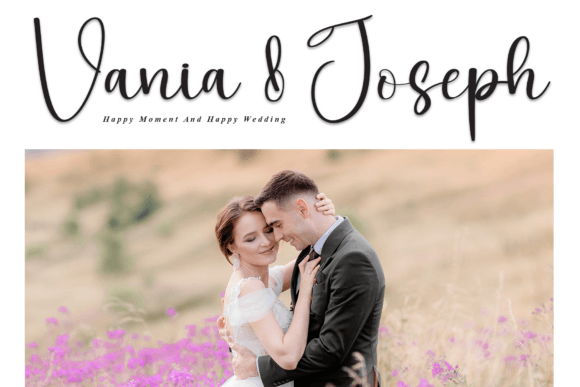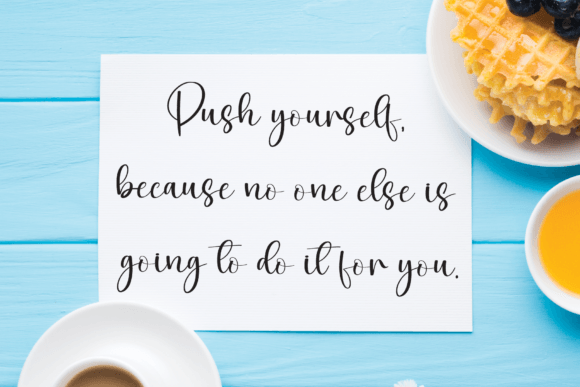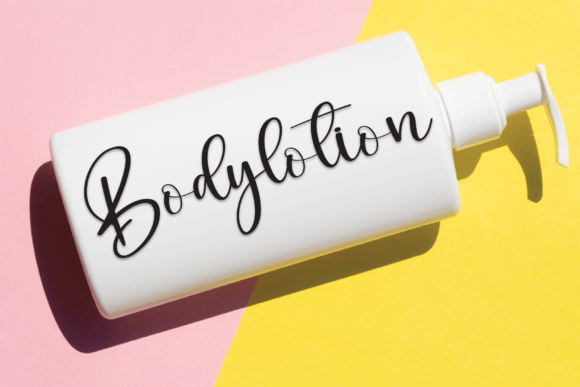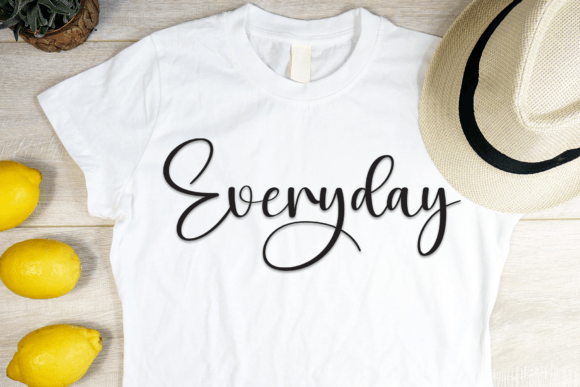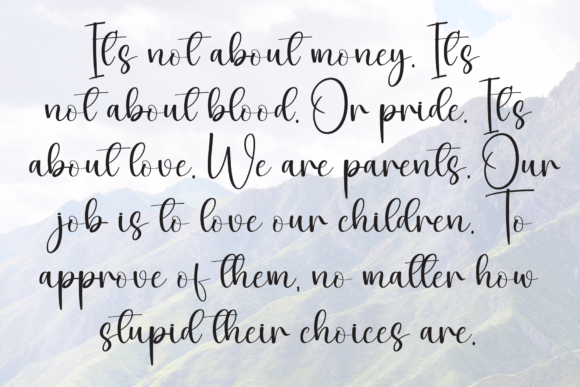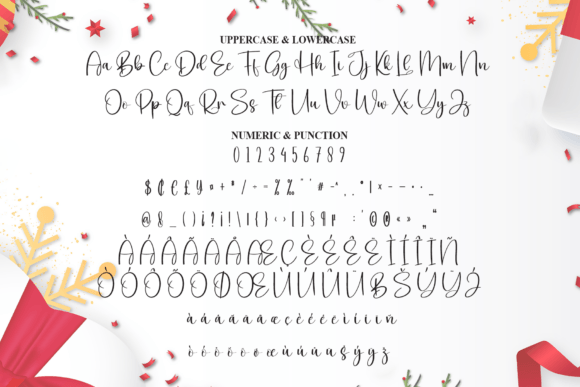
Introduction to Christmas Varsity Font
As you’re sipping hot cocoa and browsing through your favorite design blogs, you stumble upon the perfect font to make your holiday projects shine – the Christmas Varsity Font. Its elegant, handwritten style immediately captures your attention, and you can’t help but imagine the festive cards, decorations, and designs that will soon come to life with this beautiful font.
Whether you’re a seasoned designer or a creative enthusiast, finding the right font can make all the difference in bringing your ideas to life. And when it comes to the Christmas season, a high-quality font like the Christmas Varsity Font is a valuable resource that can add a touch of magic to your projects. With its smooth, flowing letters and transparent background, this font is perfect for creating eye-catching designs that will spread holiday cheer.
Key Features of Christmas Varsity Font
- Unique, hand-drawn design with a high-quality aesthetic, perfect for creative projects
- Transparent background, allowing for easy customization and versatility in design
- Includes 5 font styles, each with its own unique characteristics and uses
- High-resolution design, ideal for use in large-scale creative projects and print materials
- Perfect for adding a festive touch to holiday-themed designs, such as Christmas cards, posters, and more
Honest Review: Christmas Varsity Font
I recently had the chance to work with the Christmas Varsity Font for a creative project, and I must say, I was impressed. As a designer, I’m always on the lookout for high-quality fonts that can elevate my designs and make them stand out.
- ✨ One of the things that works well with this font is its modern and sleek design. It’s perfect for any creative project that requires a clean and minimalist look.
However, I did encounter a few limitations while working with this font. ⚠️ For one, the font doesn’t come with a lot of variations, which can limit its versatility in certain design situations.
Overall, I was pleased with the Christmas Varsity Font and would recommend it to designers who are looking for a high-quality, free design resource for their creative projects.
The Christmas Varsity Font is commonly used for holiday-themed designs, such as Christmas cards, gift tags, and invitations. It’s also a great choice for creating a festive and creative project, such as a holiday-themed social media graphic or a Christmas party flyer.